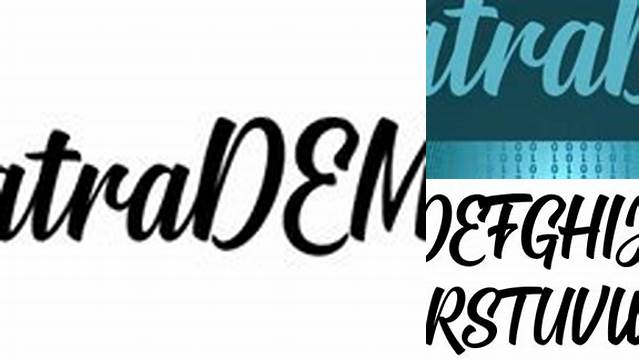
Signatrademo Font: Free Download & Usage Guide
Hey guys! Ever stumbled upon a font that just screams elegance and uniqueness? Well, let me introduce you to Signatrademo, a font that's been making waves in the design world. And the best part? You can often find it for free! This article is your ultimate guide to understanding, downloading, and creatively using the Signatrademo font. We'll dive into everything from its characteristics to licensing and even some awesome design ideas. So, buckle up and let's get started!
1. What is Signatrademo Font?
Signatrademo isn't just another font; it's a statement. Typically characterized by its flowing, script-like design, Signatrademo evokes a sense of sophistication and personality. Think handwritten notes, elegant invitations, or personalized branding. The font often features a natural-looking stroke variation, making it appear less rigid than many digital fonts. The free versions of Signatrademo usually come with a basic character set, perfect for headlines, logos, or short bursts of text. However, keep in mind that the full commercial versions often boast a wider range of glyphs, swashes, and alternate characters, offering even more creative flexibility. If you're looking to add a touch of class to your project, Signatrademo is definitely worth considering. When using the free version, be sure to check the license to ensure it aligns with your project's needs, whether it's personal or commercial. This way, you can enjoy its beauty without any legal hiccups down the road.
4. Using Signatrademo in Graphic Design
Signatrademo truly shines in graphic design projects! Its elegant script style makes it perfect for adding a touch of sophistication to various designs. Think about using it for logos, branding materials, wedding invitations, posters, and social media graphics. When incorporating Signatrademo into your designs, consider the overall aesthetic. It pairs well with minimalist designs or designs that need a personal, handcrafted feel. Experiment with different font sizes and weights to achieve the desired effect. For example, you could use a larger size for headlines and a smaller size for body text. Also, pay attention to kerning and leading to ensure the text is legible and visually appealing. Signatrademo can also be combined with other fonts to create a unique and balanced look. Try pairing it with a simple sans-serif font for a modern contrast, or with a classic serif font for a more traditional feel. Don't be afraid to experiment and explore different design possibilities! And remember, less is often more. Use Signatrademo strategically to highlight key elements and avoid overwhelming the design.
5. Signatrademo Font Alternatives
While Signatrademo is a fantastic font, it's always good to have alternatives in your design arsenal. If you're looking for similar fonts with a script or handwritten feel, consider options like Great Vibes, Allura, or Pacifico. These fonts share Signatrademo's elegance and personality, but each has its own unique characteristics. Great Vibes, for example, is known for its decorative swirls and flourishes, while Allura offers a more casual and relaxed vibe. Pacifico, on the other hand, has a retro feel reminiscent of vintage signage. When choosing an alternative, consider the specific needs of your project. Think about the overall tone, target audience, and design aesthetic. Experiment with different fonts to see which one best complements your design and conveys the desired message. You can also use font identification tools to find fonts that are visually similar to Signatrademo. These tools analyze an image of a font and suggest matching or related fonts. This can be a great way to discover new fonts and expand your creative possibilities. Remember, the best font is the one that effectively communicates your message and enhances the overall design.
6. Signatrademo for Logo Design
Using Signatrademo for logo design can give your brand a touch of elegance and personality. Its script style lends itself well to logos for businesses that want to convey a sense of sophistication, creativity, or personal connection. Think about using Signatrademo for logos in industries like beauty, fashion, event planning, or handcrafted goods. When designing a logo with Signatrademo, keep it simple and memorable. Avoid using too many decorative elements or complex details, as this can make the logo difficult to read and recognize. Focus on the core elements of your brand and use Signatrademo to highlight those elements in a stylish and visually appealing way. Consider incorporating the font into a wordmark logo, where the brand name is the primary visual element. You can also combine Signatrademo with a simple icon or symbol to create a more distinctive logo. Experiment with different font sizes, weights, and colors to achieve the desired effect. And remember, your logo should be versatile and scalable, so it looks good in both small and large sizes. Before finalizing your logo, get feedback from others to ensure it effectively represents your brand and resonates with your target audience.
7. Signatrademo in Web Design
Incorporating Signatrademo into web design can add a touch of elegance and personality to your website. However, it's important to use it strategically to ensure a positive user experience. While Signatrademo can be great for headings, banners, or short quotes, it's generally not recommended for body text due to its script style, which can be difficult to read in large blocks of text. Instead, consider using it for specific design elements where you want to draw attention or convey a sense of style. When using Signatrademo on your website, optimize it for web performance. This means using web-safe font formats like WOFF or WOFF2, which are compressed and optimized for faster loading times. You can also use CSS to specify fallback fonts in case Signatrademo is not available on the user's device. This ensures that your website will still look good even if the font doesn't load properly. Pay attention to font size and contrast to ensure readability. Use a large enough font size so that the text is easy to read on different screen sizes, and choose colors that provide sufficient contrast between the text and the background. And remember, your website should be accessible to all users, so make sure to follow accessibility guidelines when using Signatrademo.
8. Pairing Signatrademo with Other Fonts
Pairing fonts is an art, and when it comes to Signatrademo, finding the right companion can elevate your design from good to amazing. Since Signatrademo is a script font with a strong personality, it's best paired with simpler, more neutral fonts that won't compete for attention. Think of fonts like Open Sans, Montserrat, or Lato – these sans-serif fonts provide a clean and modern contrast to Signatrademo's elegance. Alternatively, you could pair Signatrademo with a classic serif font like Garamond or Times New Roman for a more traditional and sophisticated look. The key is to create balance and harmony. Avoid pairing Signatrademo with other script fonts, as this can create a cluttered and overwhelming effect. Also, be mindful of font sizes and weights. Use Signatrademo for headings or key elements, and use the paired font for body text or supporting information. Experiment with different combinations to see what works best for your design. And don't be afraid to break the rules and try something unexpected! The best font pairing is the one that effectively communicates your message and enhances the overall design.
9. Signatrademo Font Generator Tools
Want to see how Signatrademo looks with your text before you download it? Font generator tools are your friend! These online tools allow you to type in your text and preview it in various fonts, including Signatrademo. Some popular font generator tools include FontGet, MockoFun, and Canva's Font Combinator. These tools are incredibly useful for experimenting with different font pairings and seeing how Signatrademo will look in different contexts. Simply enter your text, choose Signatrademo from the font list, and adjust the size, color, and background to customize the preview. You can then download the preview image or copy the text to use in your designs. Font generator tools are also great for creating mockups and presentations. You can use them to create visuals that showcase how Signatrademo will look in your logo, website, or marketing materials. This can help you make informed decisions about your design and ensure that you're using the font effectively. And the best part? Most font generator tools are free to use, so you can experiment to your heart's content without spending a dime.
10. Signatrademo for Craft Projects
If you're a DIY enthusiast, Signatrademo can add a personal touch to your craft projects! Its elegant script style makes it perfect for creating personalized gifts, home décor items, and handmade cards. Think about using Signatrademo for vinyl cutting projects, such as creating decals for mugs, t-shirts, or wall art. You can also use it for paper crafting projects, such as creating custom invitations, scrapbook layouts, or gift tags. When using Signatrademo for craft projects, make sure to choose a font size and weight that is appropriate for the project. For example, if you're creating a vinyl decal, you'll want to use a thicker font weight to ensure that the decal is durable and easy to weed. You can also use a font editing software to customize the font and add decorative elements, such as swirls, flourishes, or shadows. And remember, safety first! When using cutting tools or heat presses, always follow the manufacturer's instructions and take necessary precautions to protect yourself. With a little creativity and some basic crafting skills, you can use Signatrademo to create beautiful and personalized items that will be treasured for years to come.
11. The History and Origin of Signatrademo Font
Delving into the history and origin of a font like Signatrademo can give you a deeper appreciation for its design and usage. While specific details about the font's creator and exact creation date might be hard to come by (especially for free fonts), understanding the general context of script fonts can be enlightening. Script fonts, in general, have a long and rich history, dating back to the art of calligraphy and hand lettering. They often aim to mimic the fluidity and elegance of handwriting, bringing a personal and artistic touch to typography. Signatrademo likely draws inspiration from these traditional forms, blending them with modern digital design techniques. The font's characteristics, such as its flowing strokes and natural variations, reflect the desire to create a typeface that feels authentic and handcrafted. Knowing this background can influence how you use the font in your designs. You might choose to emphasize its handcrafted qualities by using it in projects that require a personal touch, or you might contrast it with more geometric fonts to create a modern and unexpected look. Understanding the history of typography can also help you appreciate the evolution of design and the role that fonts play in shaping our visual culture.
12. Signatrademo Font Variations and Styles
One of the great things about fonts is that they often come in various styles and weights, and Signatrademo is no exception. While the free version might be limited in its variations, the full commercial version typically offers a wider range of options. You might find variations like Signatrademo Bold, Signatrademo Light, or Signatrademo Italic. Each of these styles can be used to create different effects in your designs. For example, the bold version can be used to emphasize headings or call attention to key information, while the light version can be used for a more delicate and understated look. The italic version can add a touch of elegance and sophistication. In addition to weight and style variations, Signatrademo might also come with alternate characters or ligatures. These are special characters that are designed to connect or replace certain letter combinations, adding a more natural and fluid look to the text. When using Signatrademo, experiment with different variations to see which ones work best for your project. Consider the overall tone and aesthetic you're trying to achieve, and choose the styles that complement your design. And remember, consistency is key. Use the same font styles throughout your design to maintain a cohesive and professional look.
13. Signatrademo Font and SEO
You might be wondering, can a font like Signatrademo actually impact your SEO? Well, indirectly, yes! While search engines don't directly rank websites based on the fonts they use, fonts can affect user experience, which does impact SEO. If your website uses Signatrademo in a way that makes it difficult to read or navigate, visitors might leave quickly, increasing your bounce rate and hurting your search engine rankings. On the other hand, if you use Signatrademo strategically to enhance your website's design and make it more engaging, visitors might stay longer and explore more pages, improving your SEO. To optimize Signatrademo for SEO, focus on readability and accessibility. Use a large enough font size and choose colors that provide sufficient contrast between the text and the background. Make sure your website is responsive and looks good on all devices. And use Signatrademo sparingly, focusing on headings or key elements rather than large blocks of text. You can also use semantic HTML tags to structure your content and provide context for search engines. By optimizing your website for user experience, you can indirectly improve your SEO and attract more visitors.
14. Common Mistakes When Using Signatrademo Font
Even though Signatrademo is a beautiful font, it's easy to make mistakes if you're not careful. One common mistake is overusing it. Remember, Signatrademo is a display font, meaning it's best used for headings, logos, or short bursts of text, not for long paragraphs of body copy. Another mistake is pairing it with the wrong fonts. As mentioned earlier, Signatrademo pairs well with simple, neutral fonts, not with other script fonts or overly decorative fonts. Another mistake is neglecting kerning and leading. Kerning refers to the spacing between individual letters, while leading refers to the spacing between lines of text. If these settings are not properly adjusted, the text can look cramped and difficult to read. Finally, another common mistake is ignoring the font license. Always make sure you have the proper license to use Signatrademo for your intended purpose, whether it's personal or commercial. By avoiding these common mistakes, you can ensure that you're using Signatrademo effectively and creating beautiful, professional-looking designs.
15. Downloading Signatrademo Font on Different Operating Systems
Whether you're on Windows, macOS, or even Linux, downloading and installing Signatrademo is generally a straightforward process. First, make sure you've downloaded the font file from a reputable source. The file will typically be in a .ttf (TrueType Font) or .otf (OpenType Font) format. On Windows, simply right-click the font file and select "Install." The font will then be automatically installed and available for use in all your applications. On macOS, double-click the font file to open it in Font Book. Then, click the "Install Font" button to install the font. On Linux, the installation process may vary depending on your distribution. You may need to copy the font file to the /usr/share/fonts directory or use a font management tool to install the font. Once the font is installed, you may need to restart your applications for the font to appear in the font list. If you're having trouble installing the font, consult your operating system's documentation or search online for specific instructions. And remember, always download fonts from trusted sources to avoid malware or viruses.
16. Signatrademo Font and Branding Consistency
When it comes to branding, consistency is key, and your choice of font plays a crucial role. Using Signatrademo consistently across all your branding materials can help create a recognizable and cohesive brand identity. This means using the same font for your logo, website, marketing materials, and social media graphics. However, it's important to use Signatrademo strategically and in a way that aligns with your brand's personality and target audience. For example, if your brand is elegant and sophisticated, you might use Signatrademo for your logo and headings, and pair it with a simple sans-serif font for body text. If your brand is more playful and casual, you might use Signatrademo in a more creative and unconventional way. The key is to create a consistent visual language that reflects your brand's values and resonates with your audience. You should also create a brand style guide that outlines your font usage guidelines. This will help ensure that everyone who works on your brand, from designers to marketers, is using the font consistently. And remember, your font is just one element of your brand identity. It should work in harmony with your colors, logo, and overall messaging to create a strong and memorable brand.
17. Signatrademo Font for Social Media Graphics
Social media is a visual medium, and using the right fonts can make your graphics stand out. Signatrademo can be a great choice for adding a touch of elegance and personality to your social media graphics. Think about using it for quote graphics, announcements, or promotional posts. When using Signatrademo on social media, keep it short and sweet. Social media users have short attention spans, so you want to grab their attention quickly. Use Signatrademo for the main headline or message, and pair it with a simple sans-serif font for supporting text. You should also optimize your graphics for different social media platforms. Each platform has its own image size and resolution requirements, so make sure your graphics are properly sized and formatted. And remember, accessibility is important on social media too. Use sufficient contrast between the text and the background, and add alt text to your images to describe them for visually impaired users. By following these tips, you can use Signatrademo to create engaging and effective social media graphics that capture your audience's attention.
18. Creating Custom Designs with Signatrademo Font
One of the best things about fonts is that you can use them to create custom designs that are unique to you. With Signatrademo, you can create custom logos, invitations, greeting cards, and more. To get started, you'll need a design software like Adobe Photoshop, Illustrator, or Canva. These programs allow you to manipulate fonts and create custom designs. When creating custom designs with Signatrademo, start with a clear vision in mind. What are you trying to create? What message are you trying to convey? Once you have a clear vision, you can start experimenting with different font sizes, colors, and styles. You can also add decorative elements like lines, shapes, or images to enhance your design. Don't be afraid to experiment and try new things. The best designs are often the result of trial and error. And remember, less is often more. A simple, elegant design can be just as effective as a complex, elaborate design. By following these tips, you can create custom designs with Signatrademo that are both beautiful and meaningful.
19. Signatrademo Font and Email Marketing
Email marketing is still a powerful tool for reaching your audience, and using the right fonts can make your emails more engaging. Signatrademo can be a great choice for adding a touch of elegance and personality to your email designs. However, it's important to use it sparingly and strategically. Email clients often have limited font support, so it's best to use web-safe fonts that are widely supported. Signatrademo is not a web-safe font, so you'll need to use it as an image. This means creating your email headings or messages in a design software and saving them as images. When using Signatrademo in email marketing, keep it concise and visually appealing. Use a clear and compelling subject line to grab your reader's attention, and use Signatrademo for the main headline or message. Pair it with a simple sans-serif font for body text. You should also test your emails on different email clients and devices to ensure they look good across all platforms. And remember, compliance is key in email marketing. Make sure you're following all applicable laws and regulations, such as the CAN-SPAM Act. By following these tips, you can use Signatrademo to create engaging and effective email marketing campaigns.
20. Signatrademo Font for Print Materials
From business cards to brochures, Signatrademo can add a touch of class to your print materials. Its elegant script style makes it perfect for creating visually appealing and memorable designs. When using Signatrademo for print, make sure to use a high-resolution version of the font to ensure that it looks crisp and clear when printed. You should also use a CMYK color mode for your designs, as this is the standard color mode for print. When choosing paper stock, consider the overall aesthetic you're trying to achieve. For a more luxurious feel, use a heavier weight paper stock with a smooth finish. For a more rustic feel, use a textured paper stock. You should also proofread your designs carefully before sending them to print. Check for any typos, errors, or alignment issues. And remember, working with a professional printer can help ensure that your print materials look their best. A professional printer can provide guidance on paper selection, color management, and other technical aspects of printing. By following these tips, you can use Signatrademo to create stunning print materials that make a lasting impression.
21. Legal Considerations for Using Signatrademo Font
Before you start using Signatrademo in your projects, it's essential to understand the legal considerations involved. As we've discussed, the free version of Signatrademo typically comes with a limited license that allows for personal use only. This means you can't use it for any commercial purposes, such as creating logos, websites, or marketing materials for your business. If you want to use Signatrademo for commercial purposes, you'll need to purchase a commercial license. The cost of a commercial license can vary depending on the font designer and the specific terms of the license. It's important to read the license agreement carefully before using the font to ensure that you're complying with all the terms and conditions. If you're unsure about the license terms, contact the font designer or the website where you downloaded the font. You should also keep a record of your font licenses in case you ever need to prove that you have the right to use the font. By taking these legal considerations into account, you can avoid any potential legal issues and ensure that you're using Signatrademo legally and ethically.
22. Tips for Improving Readability with Signatrademo Font
While Signatrademo is a beautiful font, it can be challenging to read if not used properly. Here are some tips for improving readability when using Signatrademo: Use it sparingly. As a display font, it's best used for headings, logos, or short bursts of text, not for long paragraphs of body copy. Choose a large enough font size. The font size should be large enough to be easily read on different screen sizes and devices. Use sufficient contrast between the text and the background. The text should be easily distinguishable from the background to avoid eye strain. Adjust kerning and leading. Kerning refers to the spacing between individual letters, while leading refers to the spacing between lines of text. Adjust these settings to improve the overall readability of the text. Use a clear and simple layout. Avoid cluttering the design with too many elements or distractions. By following these tips, you can improve the readability of Signatrademo and ensure that your designs are both beautiful and functional.
23. Alternatives to Paid Signatrademo Fonts
If you love the style of Signatrademo but don't want to pay for a commercial license, there are several free alternatives you can consider. Websites like DaFont, Fontspace, and Google Fonts offer a wide variety of script fonts that are similar to Signatrademo. Some popular alternatives include Great Vibes, Allura, and Pacifico. These fonts share Signatrademo's elegance and personality, but each has its own unique characteristics. When choosing an alternative, consider the specific needs of your project. Think about the overall tone, target audience, and design aesthetic. Experiment with different fonts to see which one best complements your design and conveys the desired message. You can also use font identification tools to find fonts that are visually similar to Signatrademo. These tools analyze an image of a font and suggest matching or related fonts. This can be a great way to discover new fonts and expand your creative possibilities. Remember, the best font is the one that effectively communicates your message and enhances the overall design.
24. Understanding Font Weights in Signatrademo
Font weight refers to the thickness of the font's strokes. Signatrademo, like many fonts, may come in different weights, such as Light, Regular, Bold, and Black. Each weight has a different visual impact and can be used to create different effects in your designs. The light weight is delicate and understated, while the bold weight is strong and attention-grabbing. When choosing a font weight, consider the overall tone and aesthetic you're trying to achieve. Use the light weight for a more elegant and sophisticated look, and use the bold weight for a more impactful and attention-grabbing look. You should also consider the readability of the font. A font that is too light or too thin can be difficult to read, especially on smaller screens or in low-light conditions. Conversely, a font that is too bold or too thick can be overwhelming and distracting. Experiment with different font weights to see which one works best for your project. And remember, consistency is key. Use the same font weight throughout your design to maintain a cohesive and professional look.
25. Using Signatrademo Font in Video Editing
Adding text to your videos can enhance their message and make them more engaging. Signatrademo can be a great choice for adding a touch of elegance and personality to your video titles, captions, or lower thirds. When using Signatrademo in video editing, make sure to choose a font size and color that is easily readable on different screen sizes and devices. You should also consider the length of time the text will be displayed on the screen. If the text is too short, viewers may not have enough time to read it. If the text is too long, viewers may lose interest. Use animations and transitions to make the text more dynamic and visually appealing. You can also add shadows or outlines to the text to make it stand out from the background. When choosing a background color, consider the overall tone and aesthetic of your video. Use a contrasting color to make the text more readable. And remember, sound is an important part of video editing too. Choose music and sound effects that complement the text and enhance the overall message of your video. By following these tips, you can use Signatrademo to create engaging and effective video content.
26. Signatrademo Font and Mobile Responsiveness
In today's mobile-first world, it's essential to ensure that your designs are mobile-responsive. This means that they should look good and function properly on all devices, regardless of screen size. When using Signatrademo in your designs, make sure to test them on different mobile devices to ensure that the font is readable and the layout is optimized for smaller screens. You can use media queries in CSS to adjust the font size, line height, and other properties of the font based on the screen size. You should also use a viewport meta tag to control the scaling and zoom of the page on mobile devices. This will help ensure that the page is displayed correctly on different devices. When designing for mobile, keep it simple and focused. Avoid cluttering the design with too many elements or distractions. Use a clear and concise message that is easy to understand on a small screen. And remember, touch is the primary input method on mobile devices, so make sure your buttons and links are large enough to be easily tapped. By following these tips, you can use Signatrademo to create mobile-responsive designs that look great and function properly on all devices.
27. The Psychology of Using Script Fonts Like Signatrademo
Fonts, like colors, evoke emotions and associations. Using a script font like Signatrademo can communicate a specific feeling or message to your audience. Script fonts are often associated with elegance, sophistication, creativity, and femininity. They can evoke a sense of nostalgia, tradition, or personal connection. When choosing a font for your project, consider the psychology of the font and how it aligns with your brand's personality and target audience. If you want to convey a sense of luxury or exclusivity, Signatrademo can be a great choice. If you want to convey a sense of fun or playfulness, a more casual script font might be more appropriate. It's important to use fonts intentionally and strategically to create the desired emotional impact. You should also consider the cultural associations of fonts. Some fonts may have different meanings in different cultures. By understanding the psychology of fonts, you can use them to effectively communicate your message and connect with your audience.
28. Troubleshooting Common Signatrademo Font Issues
Sometimes, things don't go as planned. You might encounter issues when using Signatrademo, such as the font not displaying correctly, the font appearing pixelated, or the font not being available in your design software. Here are some troubleshooting tips to help you resolve these issues: Make sure the font is properly installed. If the font is not installed correctly, it may not display properly. Try reinstalling the font and restarting your computer. Check the font file for corruption. If the font file is corrupted, it may cause issues. Download a fresh copy of the font from a reputable source. Clear your font cache. Your operating system and design software may cache fonts to improve performance. Clearing the font cache can sometimes resolve issues. Check your design software settings. Make sure your design software is configured to use the correct font encoding and rendering settings. Update your design software. Outdated software may have compatibility issues with newer fonts. Contact your design software support. If you're still having trouble, contact the support team for your design software. They may be able to provide additional assistance. By following these troubleshooting tips, you can resolve common Signatrademo font issues and get back to designing.
29. The Future of Script Fonts and Signatrademo's Place
Script fonts, like Signatrademo, are constantly evolving to meet the changing needs of designers and users. As technology advances, new font formats and rendering techniques are being developed, allowing for more sophisticated and expressive typography. The future of script fonts is likely to involve more variable fonts, which allow designers to customize the font's weight, width, and other properties. This will give designers more control over the look and feel of the font and allow them to create more unique and personalized designs. AI and machine learning are also playing a role in the development of new fonts. AI can be used to generate new font designs or to optimize existing fonts for readability and performance. As script fonts continue to evolve, Signatrademo's place in the design landscape will depend on its ability to adapt to these changes. By staying true to its core principles of elegance and sophistication, while also embracing new technologies and design trends, Signatrademo can continue to be a popular choice for designers for years to come.
30. Contributing to the Signatrademo Font Community
Fonts are a collaborative effort, and you can contribute to the Signatrademo font community in various ways. If you're a designer, you can create your own fonts and share them with the community. You can also provide feedback to font designers on their work. If you're a user, you can report bugs or issues you encounter when using Signatrademo. You can also share your designs that use Signatrademo to inspire others. Online forums and social media groups are great places to connect with other font enthusiasts and share your knowledge and ideas. By contributing to the Signatrademo font community, you can help make the font even better and more accessible to others. You can also learn from other designers and users and improve your own skills. So, get involved and help shape the future of Signatrademo! Who knows, maybe you'll even inspire the next great font design.